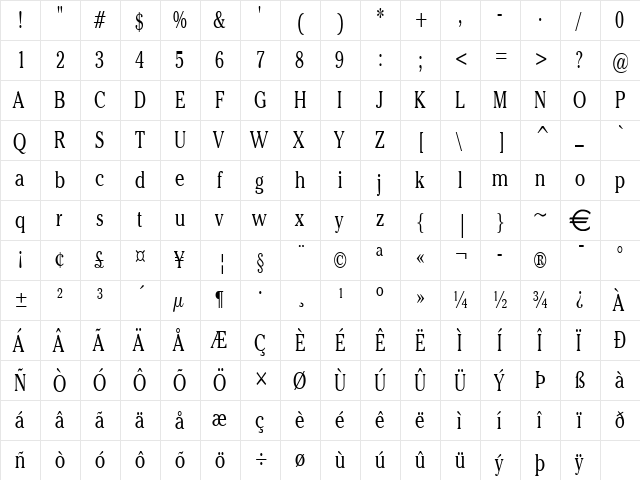
ChelseyThin Normal Font Preview
ChelseyThin Normal
ChelseyThin Normal Font Details
Design Context for ChelseyThin Typeface
ChelseyThin offers clean, dependable letterforms without strong stylistic allegiance, making it a practical choice for designers who need flexibility. Its slender proportions lend an understated elegance to any composition.